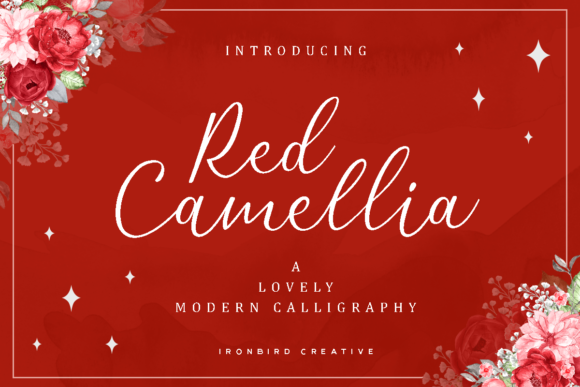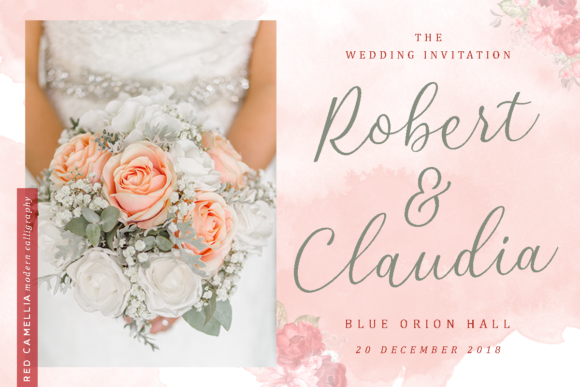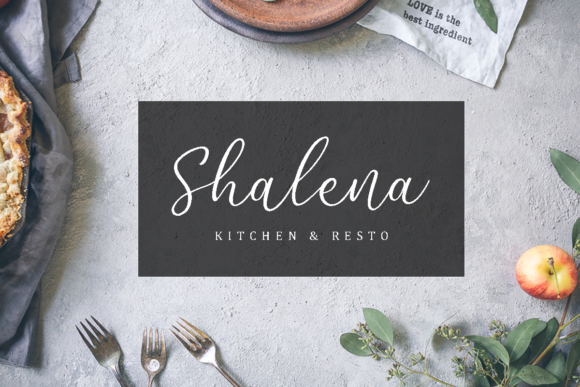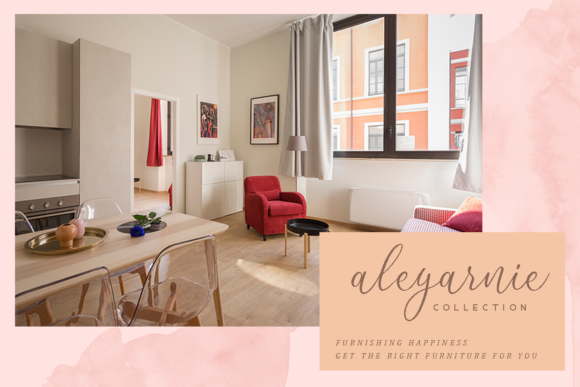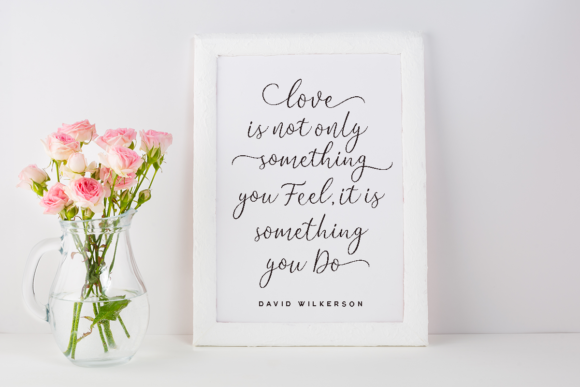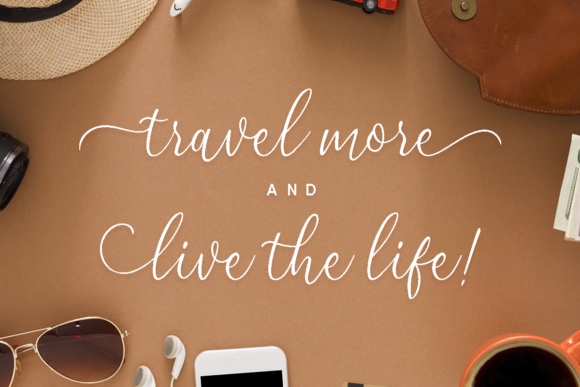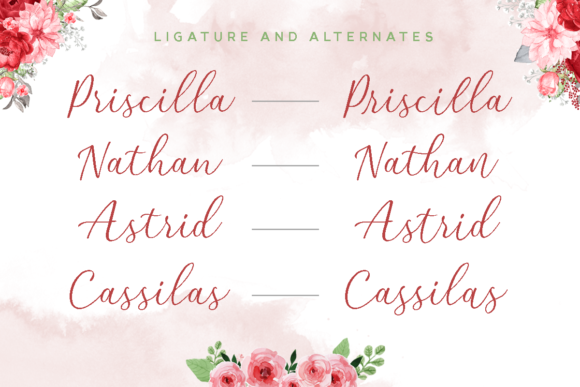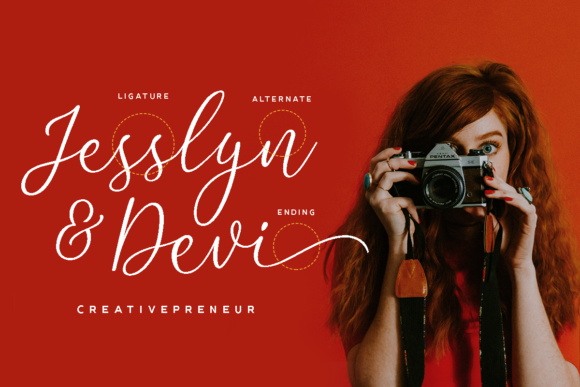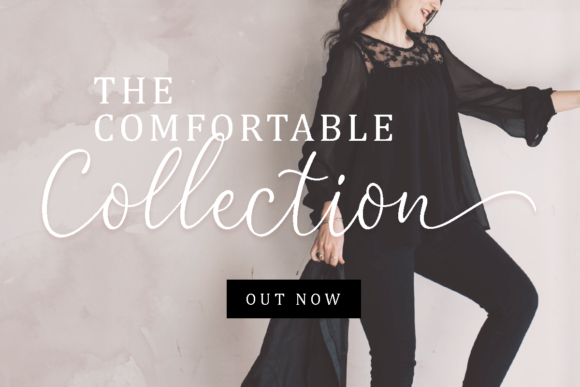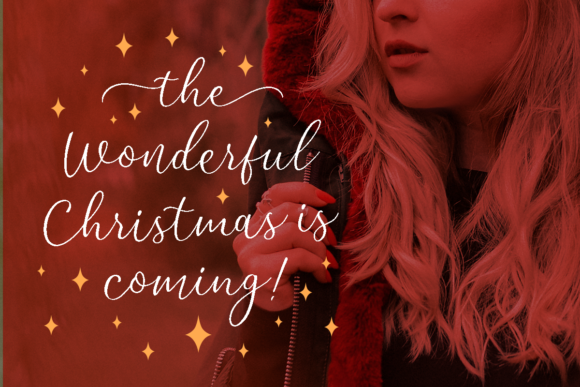
Red Camellia Font
About Red Camellia Font
The Red Camellia is a lovely modern calligraphy that brings a luxury feel. This natural handwritten script is suitable for logos, printed quotes, invitations, cards, product packaging, headers and whatever more your imagination holds.